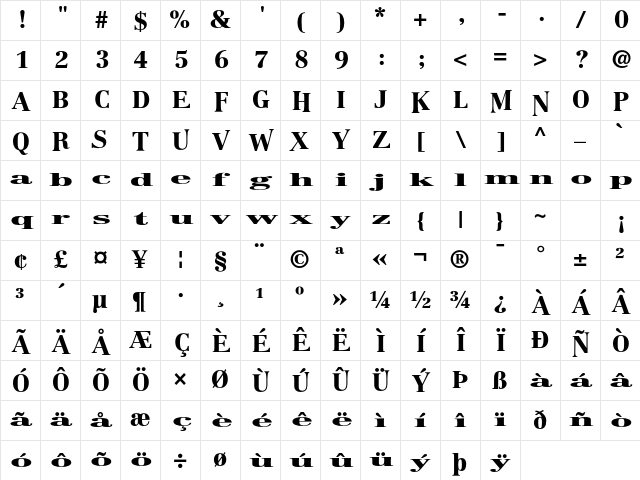
Complete Boston Regular glyph index. Displaying only characters natively supported by Boston Regular font.
Boston Regular is a composed and adaptable typeface that performs quietly and consistently across a wide range of design contexts.